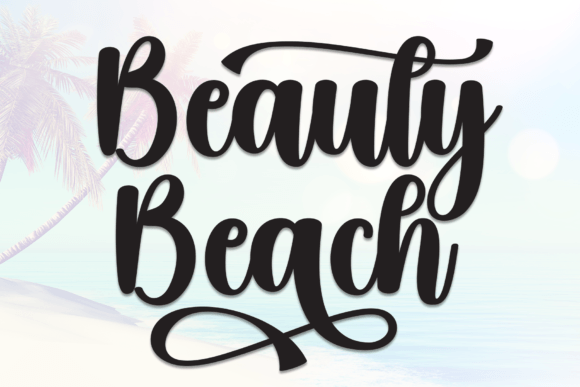
Dive into the realm of captivating typography with Beauty Beach Font, a script font family that will transform your creative visions into stunning realities. Unleash your artistic flair and let your words dance with elegance and grace, leaving an indelible mark on the hearts of your audience.
Embark on a journey of self-expression as you explore the boundless possibilities of Beauty Beach Font. Crafted with meticulous attention to detail, each character exudes a timeless charm, reminiscent of handwritten letters penned with the utmost care and artistry. Its organic flow and delicate curves evoke a sense of intimacy and authenticity, inviting readers to immerse themselves in your creations.
With Beauty Beach Font, you hold the key to unlocking a treasure trove of design opportunities. Whether you're a seasoned graphic designer, a budding artist, or simply a creative soul seeking to add a touch of magic to your projects, this font family is your perfect companion. From eye-catching logos and branding materials to heartfelt invitations and social media posts, Beauty Beach Font will effortlessly elevate your designs to new heights of sophistication.
Step into a world where words are elevated to art, where every letter tells a story, and where your creative expression knows no bounds. Let Beauty Beach Font ignite your imagination and guide you towards design masterpieces that resonate with emotion and leave a lasting impression. Join the ranks of inspired creators who have embraced the power of Beauty Beach Font and witnessed their designs transformed into works of art.